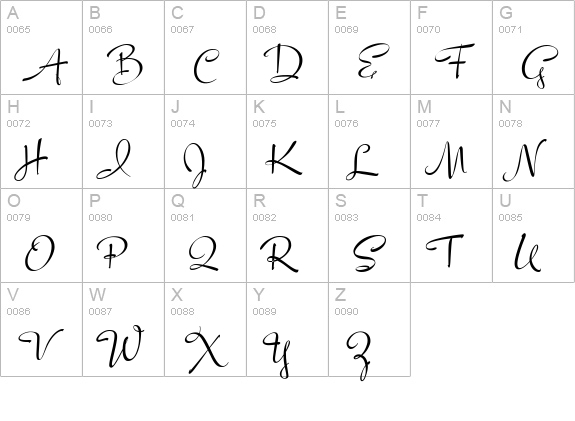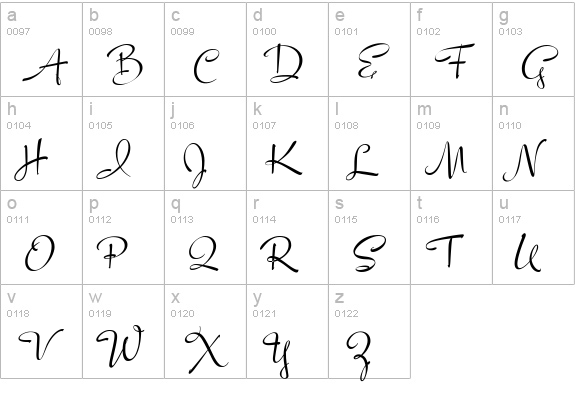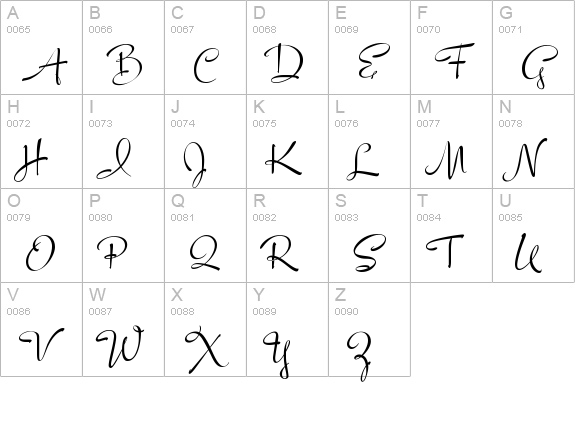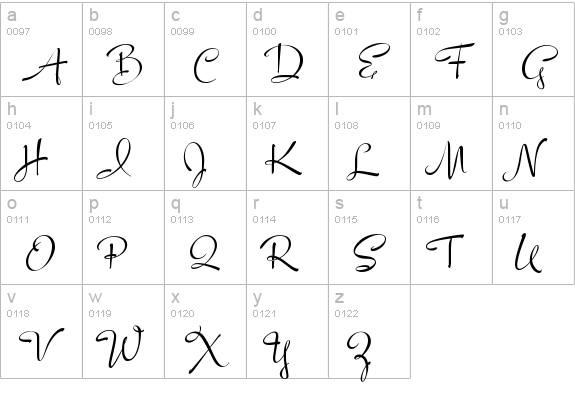
LucyScriptCapitals Font Details
Introducing LucyScriptCapitals font, a mesmerizing typeface that effortlessly captures the essence of elegance and sophistication. With its beautifully crafted curves and meticulously designed strokes, this font will add a touch of grace to any project it graces. LucyScriptCapitals font exudes a timeless charm, reminiscent of classical calligraphy, making it perfect for invitations, logos, branding, and other creative endeavors. Its delicate yet strong letterforms lend a sense of refinement, making a lasting impression on any audience. What sets LucyScriptCapitals font apart is not only its stunning aesthetics but also its accessibility. As a testament to our commitment to fostering creativity and inclusivity, this font is available for free download exclusively at FontsMarket.com. Now, you can elevate your designs without any financial constraints, allowing your imagination to soar to new heights. Whether you're a professional designer or an aspiring creative, LucyScriptCapitals font is a must-have addition to your font library. Its versatility ensures that it can adapt to a wide range of design styles and purposes, effortlessly enhancing the visual appeal of your projects. Don't miss the opportunity to embrace the timeless elegance of LucyScriptCapitals font. Download it for free today at FontsMarket.com and unleash your creativity like never before.